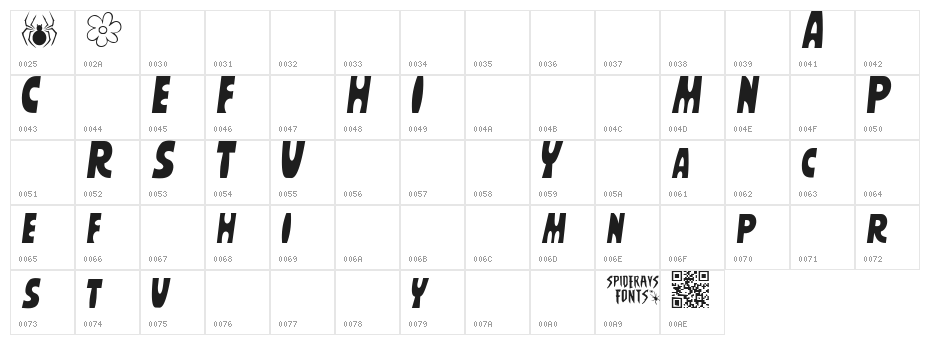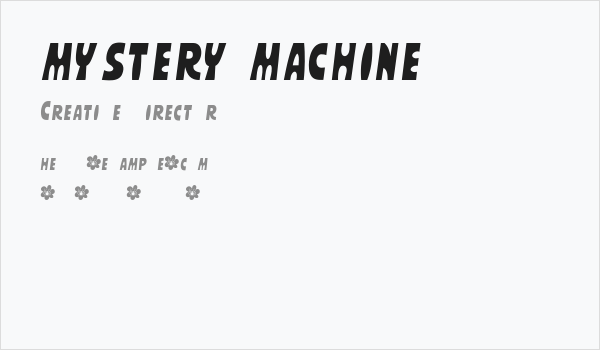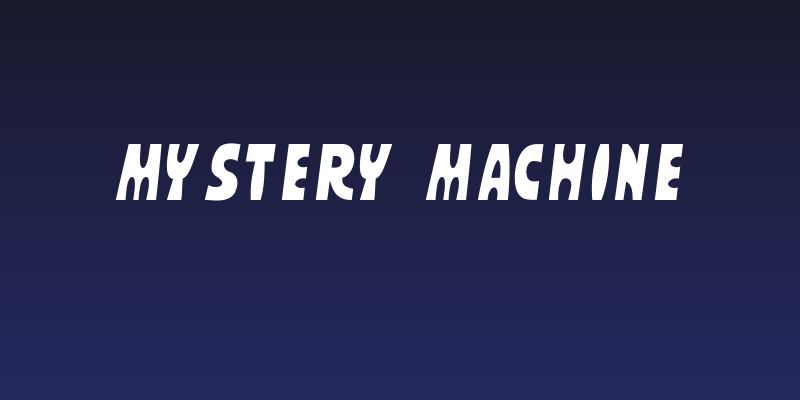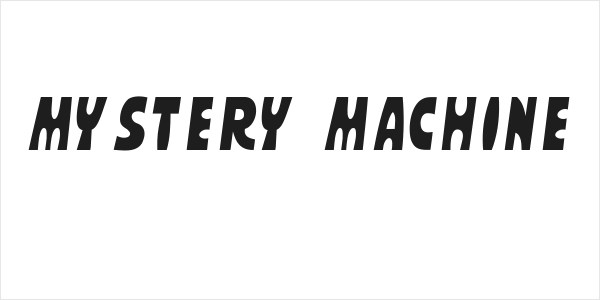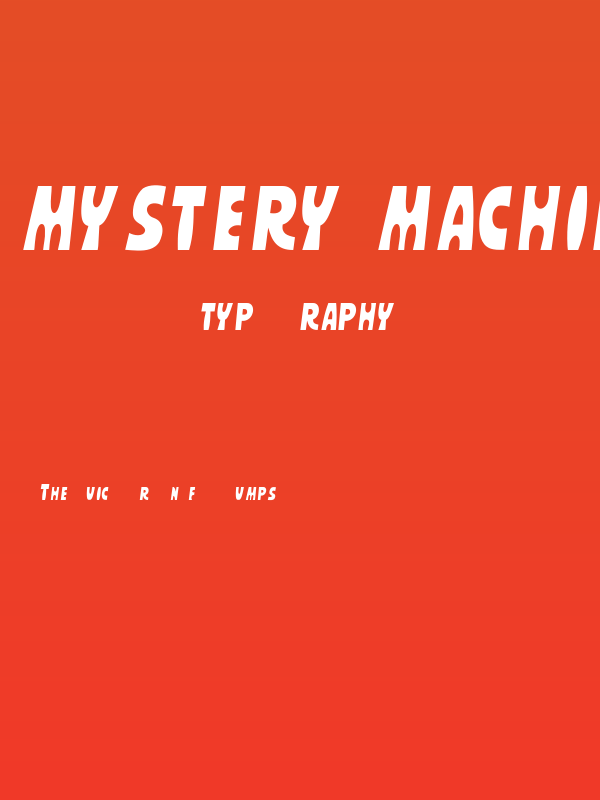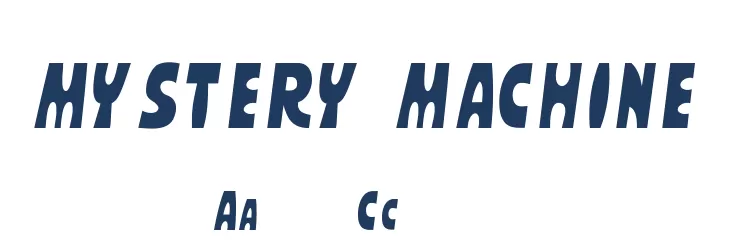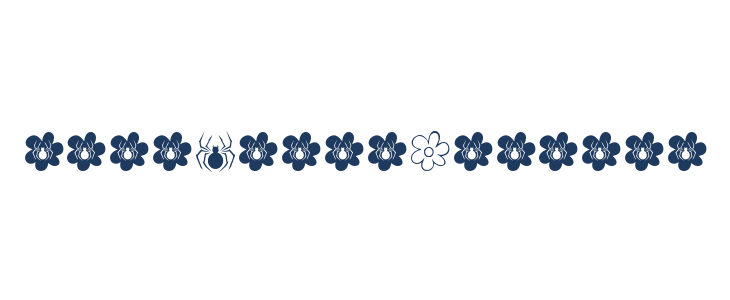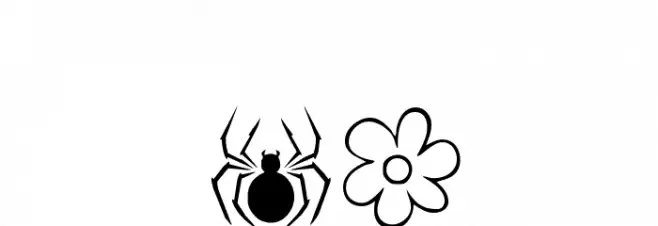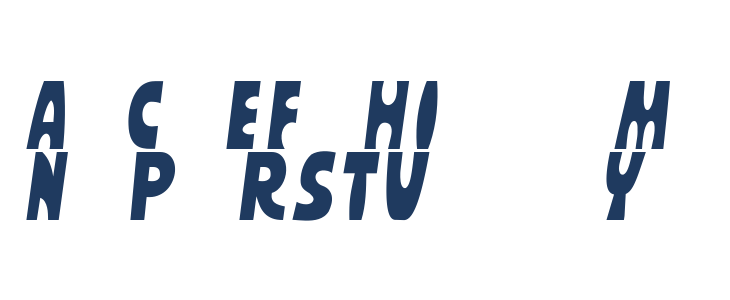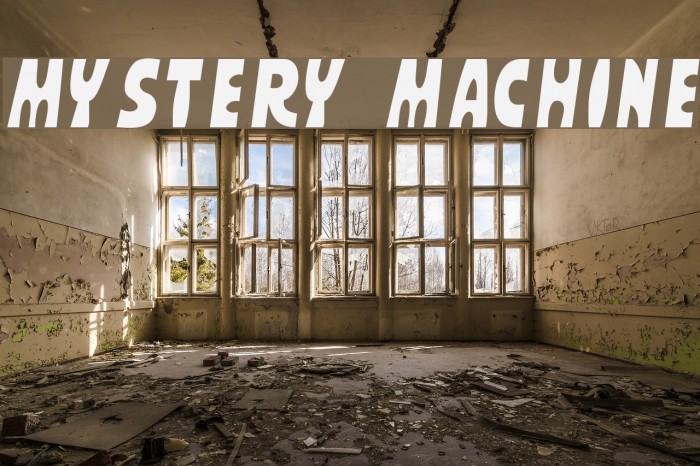
MYSTERY MACHINE Font
✎ Retro
MYSTERY MACHINE Description
This font features a playful and bold style, characterized by its thick, rounded letters with a slight slant, giving it a dynamic and energetic appearance. The uppercase and lowercase letters maintain a consistent weight, adding to its boldness. The font includes unique decorative elements, such as the spider and flower symbols, which enhance its whimsical nature. The overall design is reminiscent of retro or vintage styles, making it suitable for projects that aim to evoke nostalgia or a sense of fun. The characters are tightly spaced, contributing to its compact and impactful look.
| Proposed Projects | Ideal for children's book covers, retro-themed posters, playful branding, and event invitations. |